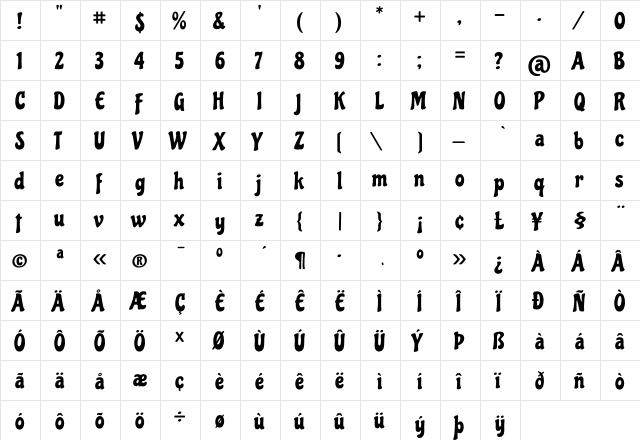
ChicleST Regular
| Designer | Angel Koziupa and Alejandro Paul |
Design Context for ChicleST Typeface
ChicleST is a composed and adaptable typeface that performs quietly and consistently across a wide range of design contexts.